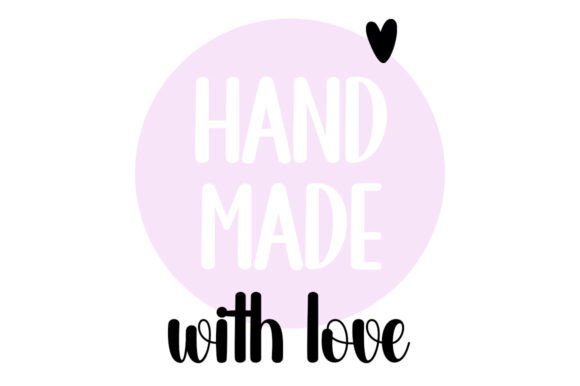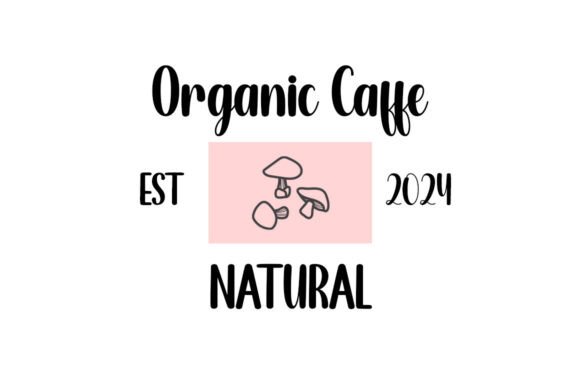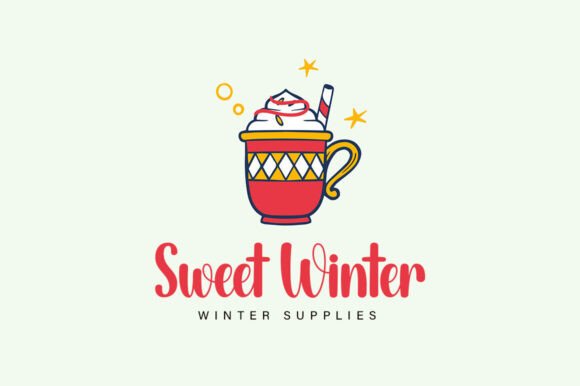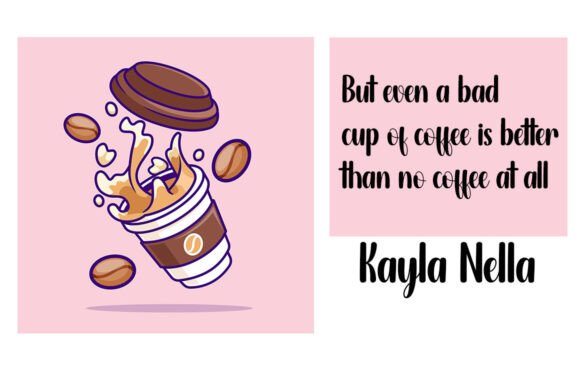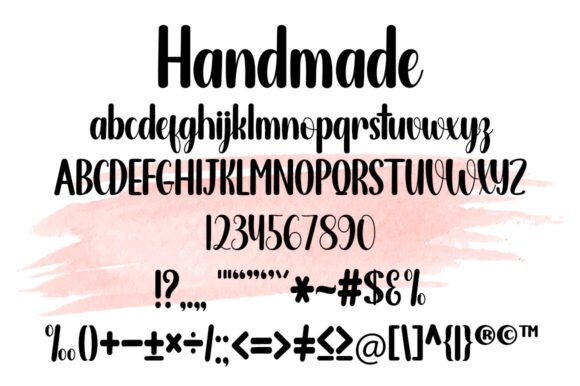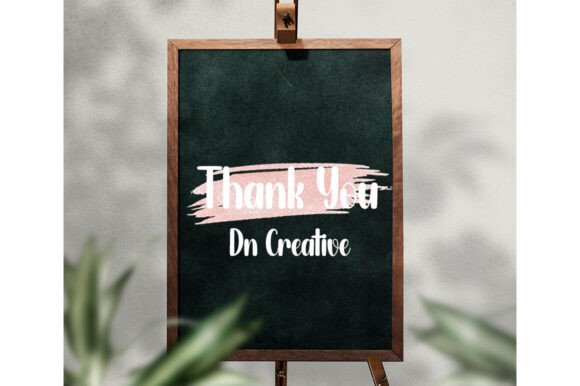
Introducing Handmade Font: Elevate Your Designs with Timeless Elegance
In the world of typography, a well-crafted font can make all the difference in elevating your design projects from ordinary to extraordinary. If you’re a designer, crafty enthusiast, or simply someone who appreciates the art of beautiful writing, you’re in luck. Handmade Font is a stunning, trendy handwritten font that embodies the perfect blend of contemporary flair and classic sophistication.
Inspired by Timeless Classic Calligraphy
Handmade Font draws inspiration from the timeless beauty of classic calligraphy, bringing an air of elegance and refinement to your designs. With its impeccable form and carefully crafted lettering, this font is sure to add a touch of luxury to any project. Whether you’re working on a branding campaign, packaging design, or simply a creative hobby, Handmade Font is the perfect choice for those seeking to infuse their work with a sense of sophistication and poise.
A Contemporary Twist on Classic Elegance
What sets Handmade Font apart from other handwritten fonts is its unique blend of traditional and modern elements. While it pays homage to the classic calligraphy of the past, it also boasts a distinctly contemporary atmosphere that will appeal to designers and crafters looking for a fresh, on-trend aesthetic. This font is perfect for those who want to add a touch of whimsy and personality to their designs without sacrificing elegance and sophistication.
Key Features of Handmade Font
- Trendy and Timeless: Handmade Font combines the best of both worlds, blending classic calligraphy with a modern, trendy vibe.
- Impeccable Form: Each letter has been carefully crafted to ensure a high level of legibility and aesthetic appeal.
- Elegant and Refined: Perfect for designs that require a touch of sophistication and luxury.
- Versatile: Suitable for a wide range of design projects, from branding and packaging to crafting and DIY.
Use Cases for Handmade Font
Handmade Font is incredibly versatile, making it suitable for a wide range of design projects. Here are just a few examples:
- Branding and Logo Design: Add a touch of elegance and sophistication to your brand identity with Handmade Font.
- Packaging Design: Elevate your product packaging with a font that exudes luxury and refinement.
- Crafting and DIY: Perfect for crafty enthusiasts looking to add a personal touch to their handmade creations.
- Stationery and Invitations: Create beautiful, bespoke stationery and invitations that showcase your personal style.
Tips for Using Handmade Font Effectively
To get the most out of Handmade Font, here are a few tips to keep in mind:
- Pair with Simple Backgrounds: Allow Handmade Font to take center stage by pairing it with simple, understated backgrounds.
- Mix and Match: Combine Handmade Font with other fonts and design elements to create unique, eye-catching compositions.
In conclusion, Handmade Font is a truly exceptional handwritten font that offers a perfect blend of classic elegance and contemporary flair. With its impeccable form, elegant lettering, and versatile design, it’s the perfect choice for designers, crafters, and anyone looking to add a touch of sophistication to their creative projects. Whether you’re working on a branding campaign, packaging design, or simply a fun crafting project, Handmade Font is sure to elevate your designs to new heights.